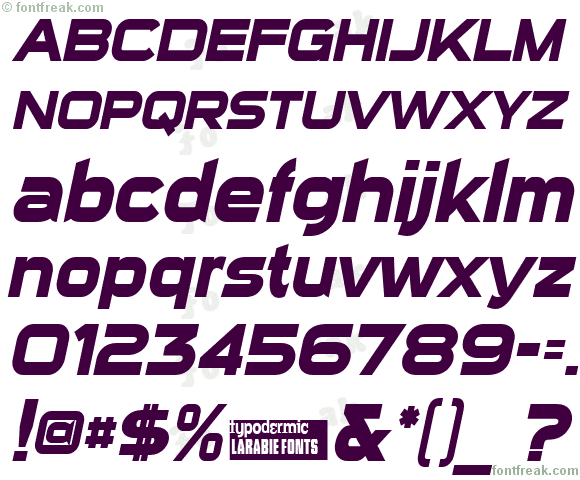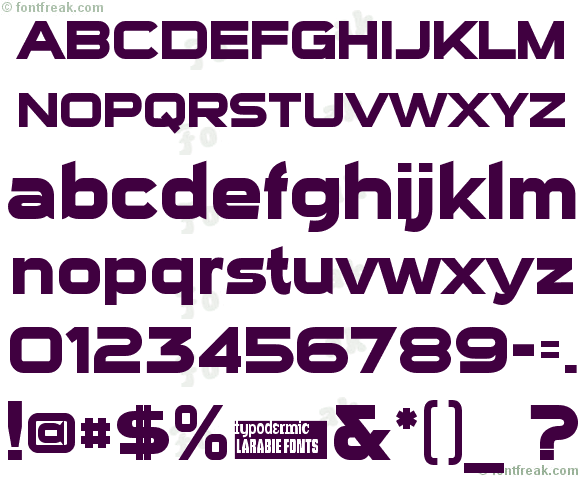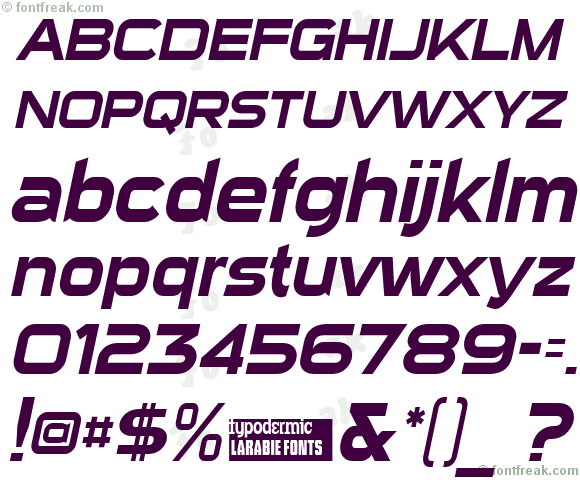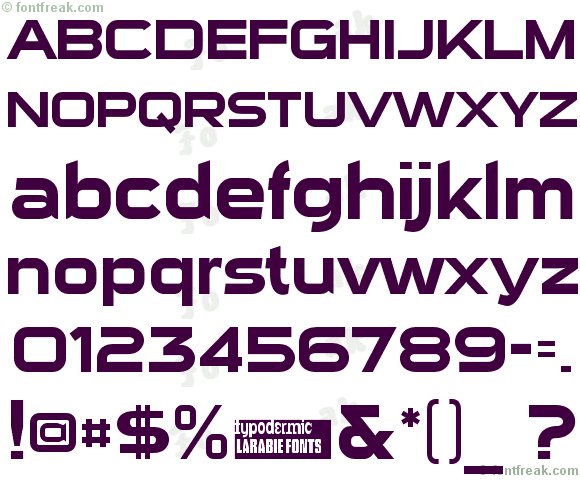
Sui Generis, designed by Ray Larabie, is a striking display font that captures attention with its bold and distinctive style. This font features a sans-serif design characterized by high stroke weight and minimal contrast, giving it a modern and robust appearance. The geometric shapes and clean lines are complemented by a slight italic slant, enhancing its visual impact while maintaining legibility. The spacing between characters is thoughtfully balanced, making it suitable for various applications without sacrificing clarity.
The Sui Generis font is versatile and can be effectively used in a range of contexts. It's an excellent choice for wedding invitations, where its unique design can convey a sense of elegance and individuality. Additionally, it works wonderfully for movie posters, helping to create an eye-catching focal point that draws viewers in. Restaurant menus can benefit from the boldness of Sui Generis, making dish names stand out and enticing customers. Graphic designers will find it particularly useful for branding projects, as its modern aesthetic can help create a memorable logo or promotional material.
What sets Sui Generis apart is its ability to combine boldness with a sense of individuality. Whether used in print or digital media, this font commands attention while maintaining a clean and professional appearance. Its unique style makes it a valuable addition to any designer's toolkit, ensuring that projects stand out in a crowded visual landscape.